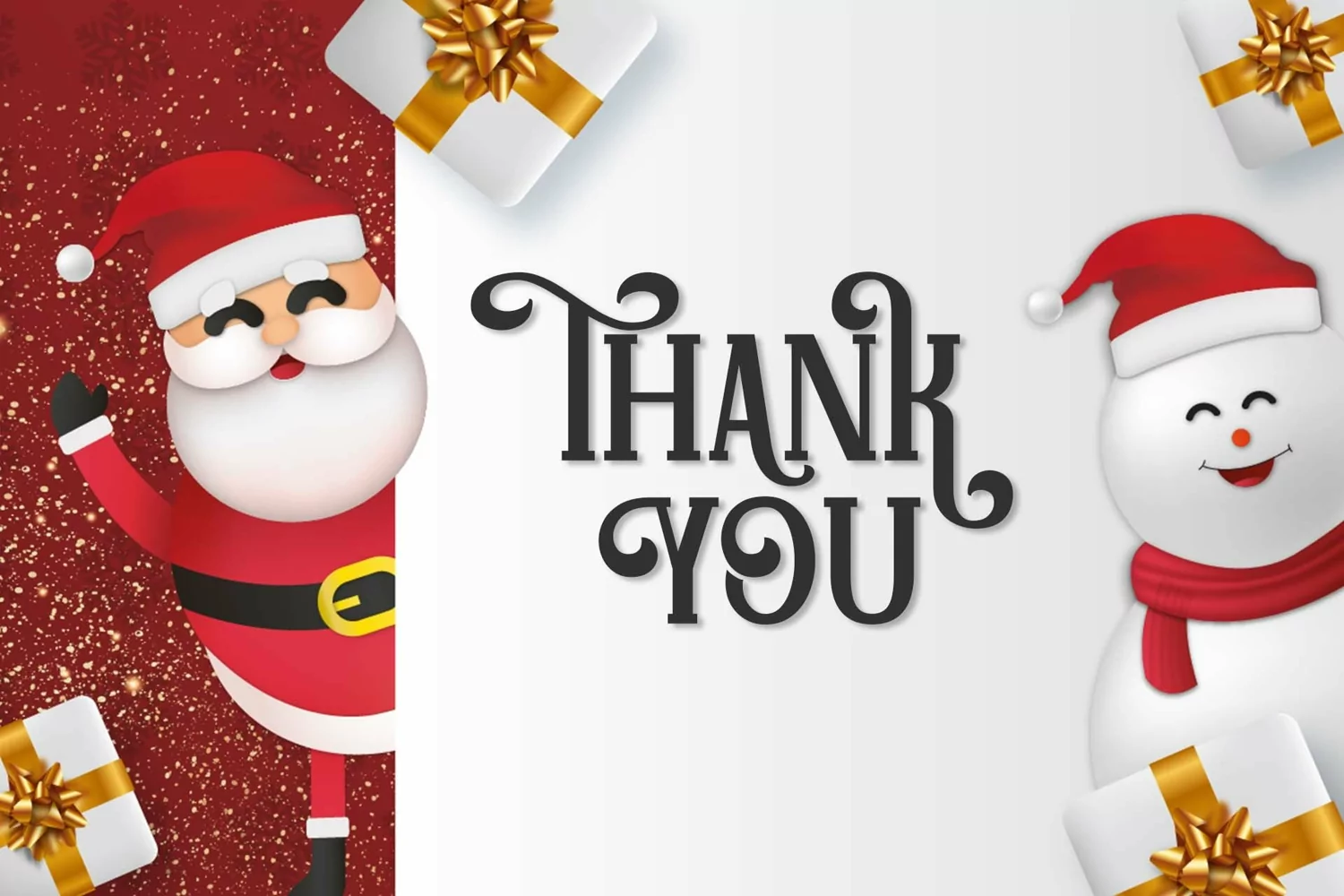
Christmas Seasonal - A Christmas Theme Font
Hello Christmas is a festive and chic serif font. It is PUA encoded, which means you can access all of the glyphs and swashes with ease! Add it confidently to your favorite creations and let yourself be amazed by the outcome generated.
Multilingual Support
Alternates Character